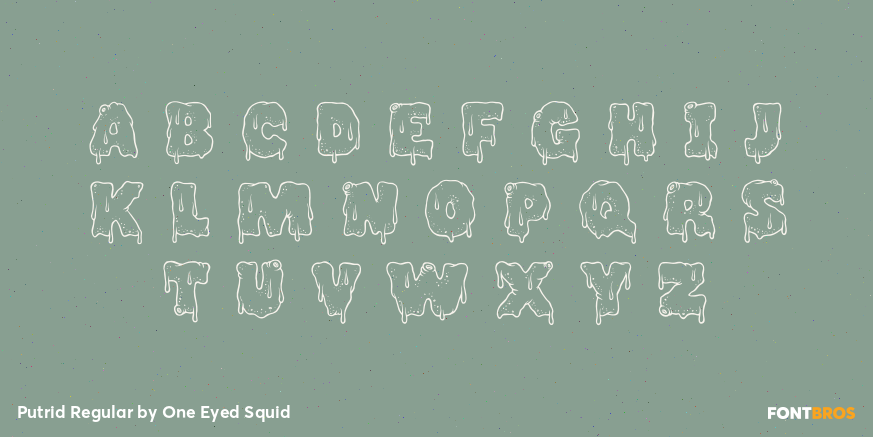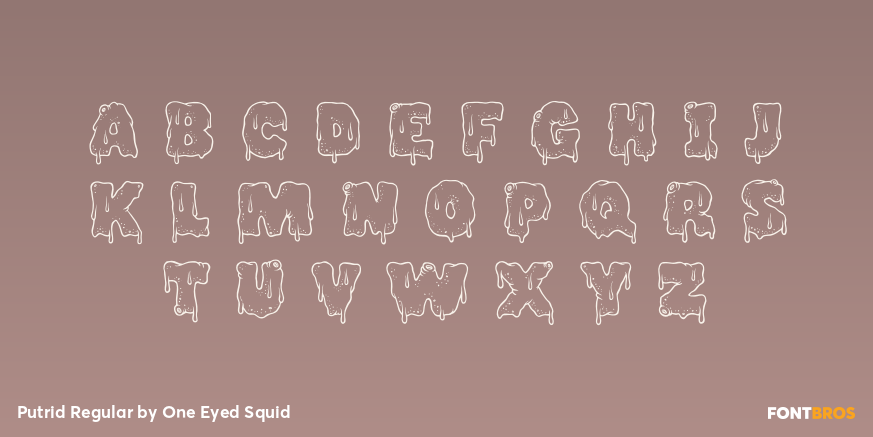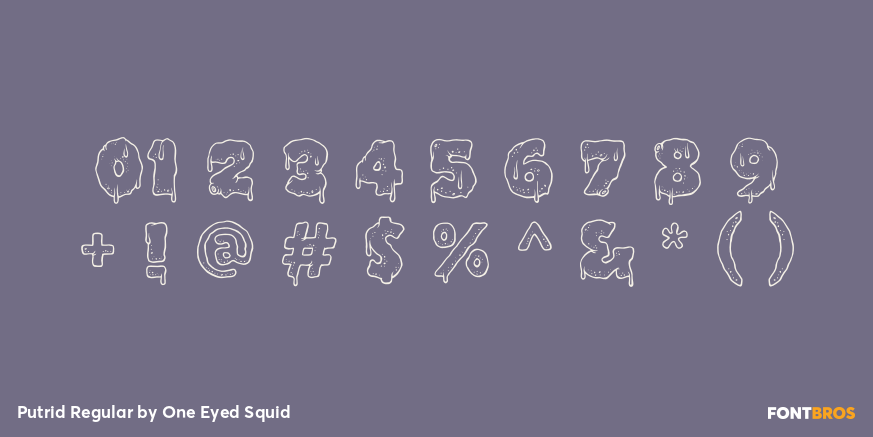
Putrid Regular
Font Style by One Eyed Squid
It's snot just your average fetid, festering font! Putrid is piled high with pus, brimming with bile, and dripping with decomposing dribbles.
This is the Regular style (Outline with Details) that you can type with and use as a Coloring Book style font, typeset, print, and color in with markers or colored pencil or whatnot.
(Putrid-Regular contains an extended Latin character set with added Vietnamese support.)